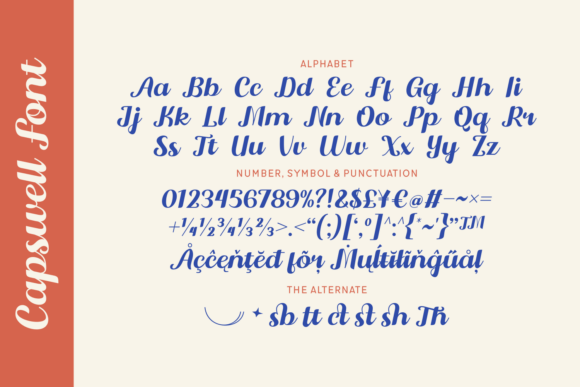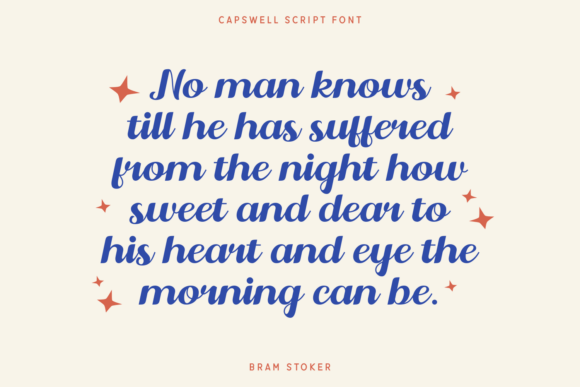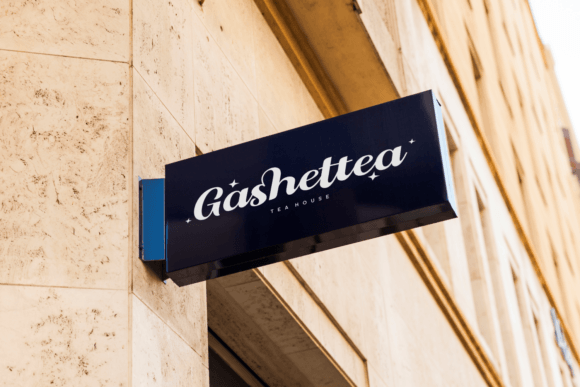
Introduction to Capswell Font
Capswell is a bold script font that features clean, modern lines.
Its strong, uppercase letters make it perfect for headlines and titles The design is simple yet striking, giving any text a confident and contemporary look.
Key Features of Capswell Font
Why Choose Capswell Font?